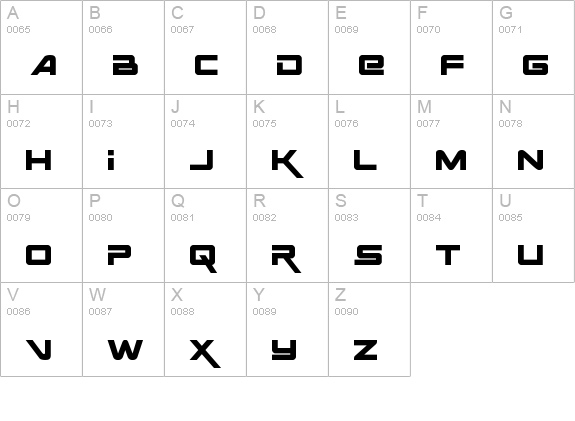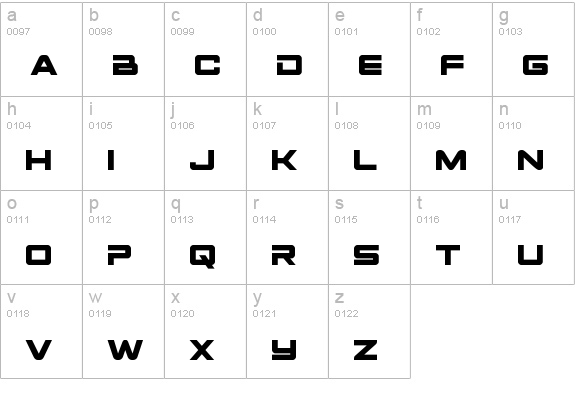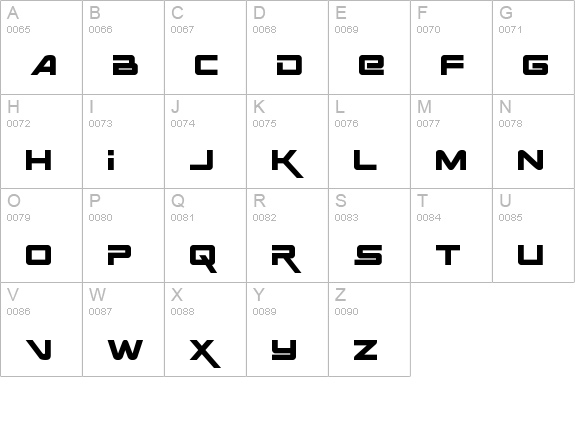
Space Ranger is a donationware font in the Modern > Sci-Fi category, designed by Iconian. It has been downloaded 229 times and is available for Windows, Mac and Linux.
Space Ranger font is a futuristic and eye-catching typeface that perfectly captures the essence of outer space exploration. With its sleek lines and bold design, this font is ideal for any project that requires a modern and adventurous touch. Whether you're working on a sci-fi movie poster, a technology blog, or a space-themed logo, Space Ranger font will bring your designs to life.